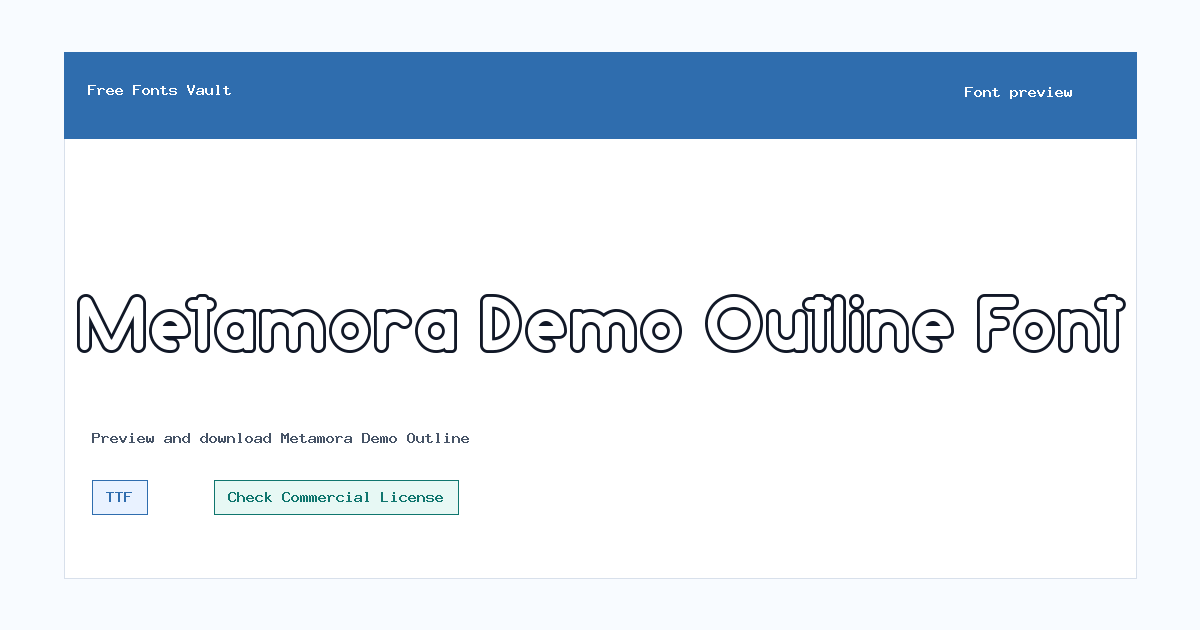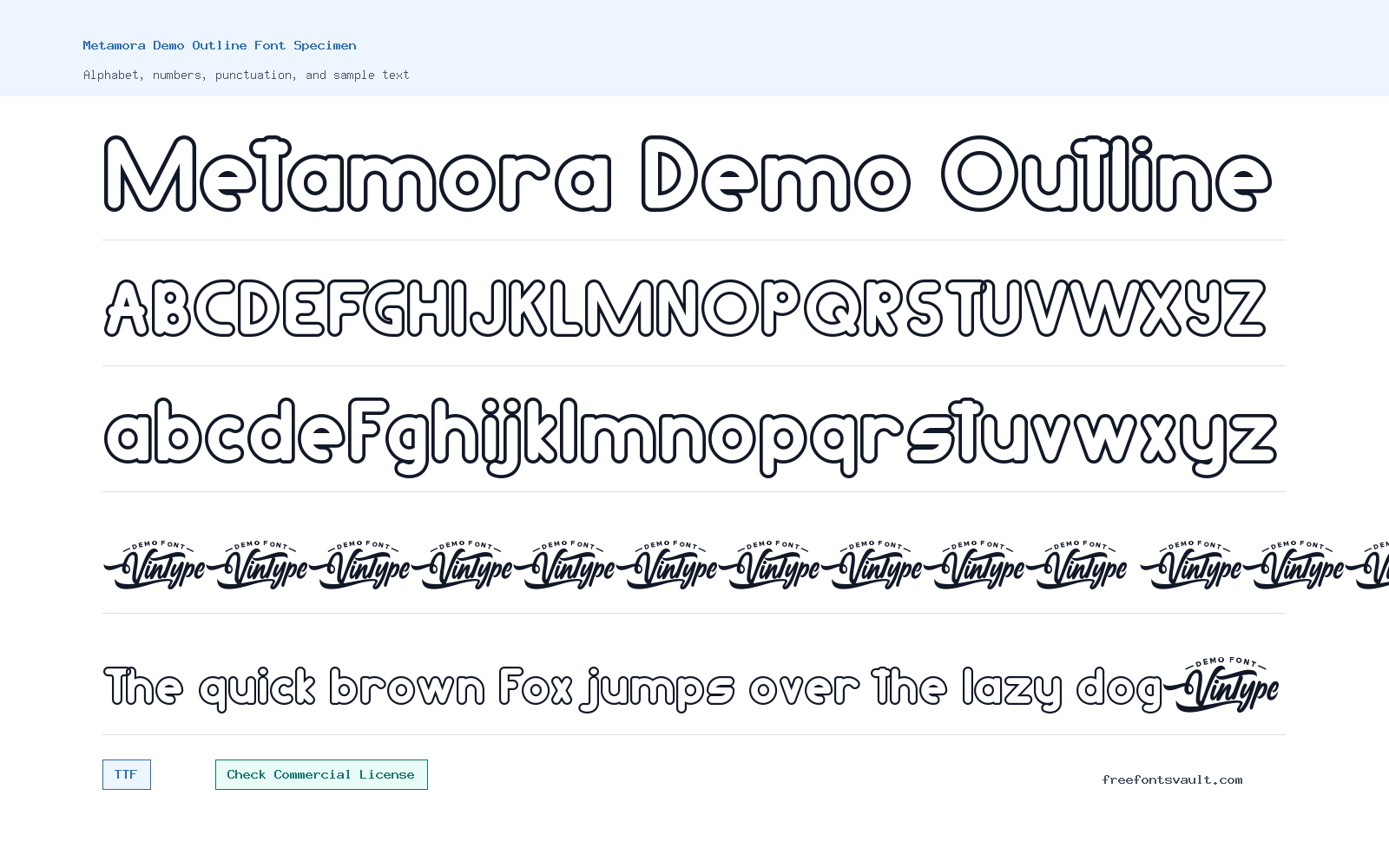
Metamora Demo Outline
Metamora Demo Outline font.
Metamora Demo Outline is a decorative display font with an outline style, made for short, eye-catching text rather than long reading.
About Metamora Demo Outline
Metamora Demo Outline works best when you want the letters to act as a visual element. Its outline treatment gives words a lighter, more open look than a filled display face, so it can stand out in titles without feeling too heavy. Use it for large text where the shape of each letter has enough room to show clearly.
For best results, test it in the preview with the exact words you plan to use. Outline fonts can lose clarity at small sizes, especially in thin layouts, busy backgrounds, or low-contrast colors. Try it with short phrases, poster-style headings, social graphics, mock logos, labels, or decorative name text. Since the download is a TTF file, it should be easy to test in many design apps that support TrueType fonts.
Metamora Demo Outline is most useful when the outline effect is part of the design, not just decoration. It can work for fashion-inspired headings, invitation titles, packaging mockups, social graphics, and logo sketches where open letter interiors help the text feel lighter. Because this is a demo font, keep license checking close to the project: personal experiments are different from paid branding, product packaging, merch, or client delivery. Preview the exact phrase first so thin outline details do not disappear at small sizes.
For mockups, try the outline letters over flat color blocks, photos with calm backgrounds, or simple gradients with strong contrast. Avoid placing the font over busy textures unless the text is very large. Outline styles need clear edges, so a small shadow or solid companion font can help supporting words stay readable.
- Outline display style suited to large headlines and decorative text
- Posters, title cards, and social media graphics
- Mock logos, name designs, labels, and short display phrases
Keep the text short, use a large size, and check contrast carefully. Outline lettering often needs a plain background or a strong color pairing to stay readable.
What kind of projects is this font good for?
It is best for short display text such as posters, social graphics, mock logos, headings, labels, and decorative names.
Can I use it for body text?
It is not ideal for body text. Outline fonts are usually easier to read at larger sizes and in short phrases.